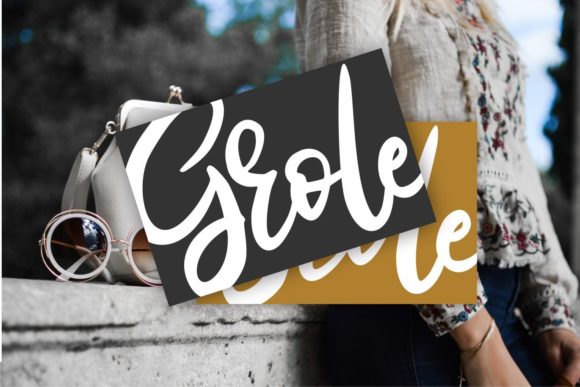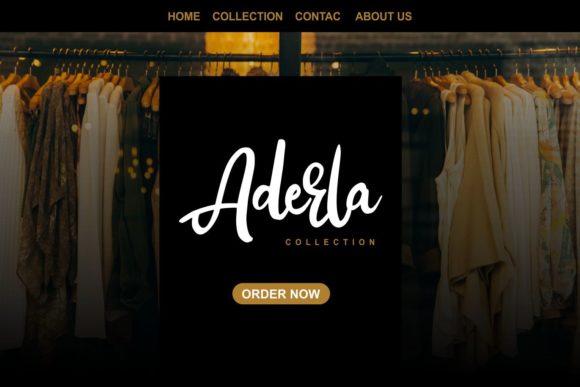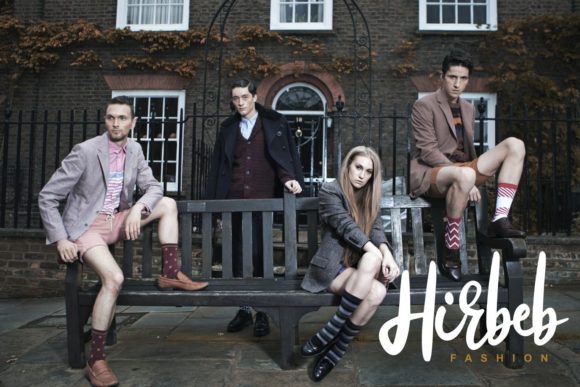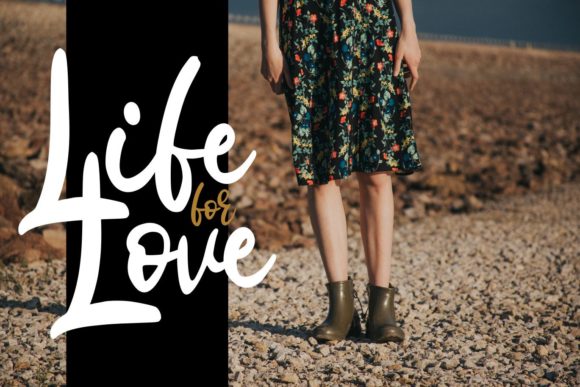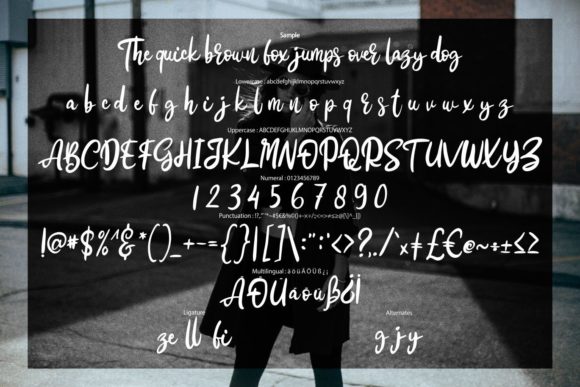
Cestroy Script Font - Featured Image
Discover the Timeless Charm of Cestroy Script Font
Have you ever found yourself pouring your heart and soul into a design project, only to be inspired by the smallest detail? Maybe it was a handwritten note from a loved one, or a vintage sign that caught your eye. Whatever the spark, it’s moments like these that remind us why we love design in the first place. For those seeking to capture the essence of elegance and sophistication in their work, the Cestroy Script Font is an absolute treasure trove.
This beautiful handwritten font boasts an incredibly distinct and timeless style that’s sure to elevate any project. Whether you’re working on a wedding invitation, a logo, or a social media campaign, the Cestroy Script Font is the perfect choice for adding a touch of refinement and sophistication. Its versatility and effortless charm make it an invaluable tool for designers looking to create truly spectacular designs.
Cestroy Script Font Key Features
• Font Family: Cestroy Script Font is a handwritten script font that offers a unique, elegant, and stylish feel to any design.
• Unique Characteristics: The font features connected letterforms, subtle flair, and organic feel, giving it a distinctive and artistic touch.
Cestroy Script Font Review
I’ve had the chance to work with Cestroy Script Font on a recent design project, and here’s my honest take on this elegant script font.
• Unique aesthetic: Cestroy Script Font has a distinctive, handwritten feel that can add a touch of sophistication to any design.
• High-quality details: The font’s intricate lines and subtle flourishes give it a high-end feel that’s perfect for luxury branding and editorial design.
• Limited character set: While Cestroy Script Font has a wide range of letters and symbols, it may not be as comprehensive as other script fonts on the market.
• Difficult to read at small sizes: The font’s intricate details can make it challenging to read at very small sizes, which may be a concern for designs that require small text.
Cestroy Script Font is a beautiful and versatile font that’s perfect for designers looking to add a touch of elegance to their work. While it may have some limitations, its unique aesthetic and high-quality details make it a great choice for luxury branding, editorial design, and more.
Cestroy Script Font Practical Application Guide
Tips for Getting the Most Out of Cestroy Script Font
Use Cestroy Script Font to add a touch of elegance and sophistication to your designs. Try pairing it with bold or sans-serif fonts to create a striking contrast. Experiment with different font sizes and colors to achieve the desired effect.
Cestroy Script Font is perfect for:
• Wedding invitations and stationery
• Branding and logos
• Typography-based artwork
• Special occasion cards and gifts